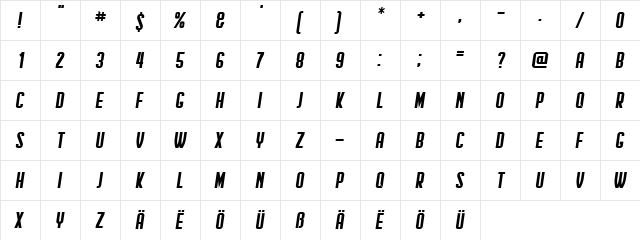
Hindenburg Condensed Italic
Design Context for Hindenburg Condensed Typeface
Hindenburg Condensed offers clean, dependable letterforms without strong stylistic allegiance, making it a practical choice for designers who need flexibility. The dynamic lean of this cut emphasises speed and emphasis in any layout. Its narrow stance lets it pack a punch even in space-constrained designs.
Pro Tip: Try Hindenburg Condensed for annotation and caption copy alongside an upright companion — the contrast in angle creates a dynamic but ordered typographic system.